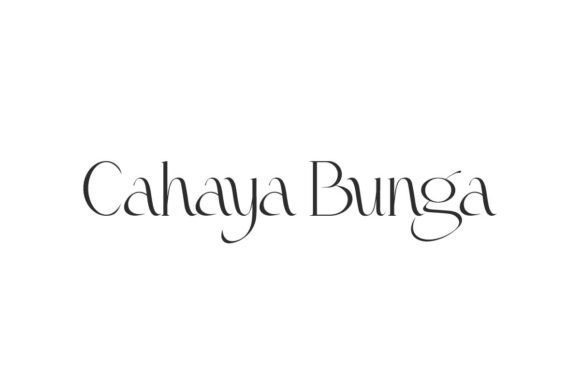
The Elusive Font: A Designer’s Journey with Cahaya Bunga
I still remember the project like it was yesterday. I was working on a luxury branding campaign for a high-end fashion client, and I was on a mission to find the perfect font. The client wanted something that exuded elegance, sophistication, and a touch of artistic flair. I scoured the internet, tried out countless fonts, but nothing seemed to fit the bill. That was until I stumbled upon Cahaya Bunga.
This refined serif font with artistic curves and expressive letterforms caught my eye, and I knew I had found the one. The unique mix of calligraphic flair and classical elegance made it ideal for high-end branding, editorial designs, and luxury packaging. Each character radiates sophistication while maintaining a graceful, organic feel.
An Honest Review of Cahaya Bunga
- ✨ Elegant and refined design that’s perfect for luxury branding and editorial projects
- 🎨 Artistic curves and expressive letterforms add a touch of personality to any design
While Cahaya Bunga is an exceptional font, there are a few things to keep in mind:
- ⚠️ Some characters may not work well at very small font sizes (less than 10pt)
- 🤔 Limited availability of certain OpenType features, such as ligatures and stylistic alternates
The Designer Inspiration Behind Cahaya Bunga
The story behind Cahaya Bunga’s design is one of passion and creativity. The font was crafted by a team of designers who sought to create a typeface that would evoke the elegance and sophistication of traditional calligraphy, while also incorporating modern elements and artistic flair.
The designers drew inspiration from various sources, including ancient manuscripts, elegant scripts, and luxurious branding materials. The result is a font that exudes refinement, sophistication, and a touch of artistic personality.
Q: What is Cahaya Bunga’s design style?
A: Cahaya Bunga is a refined serif font with artistic curves and expressive letterforms, making it ideal for high-end branding, editorial designs, and luxury packaging.